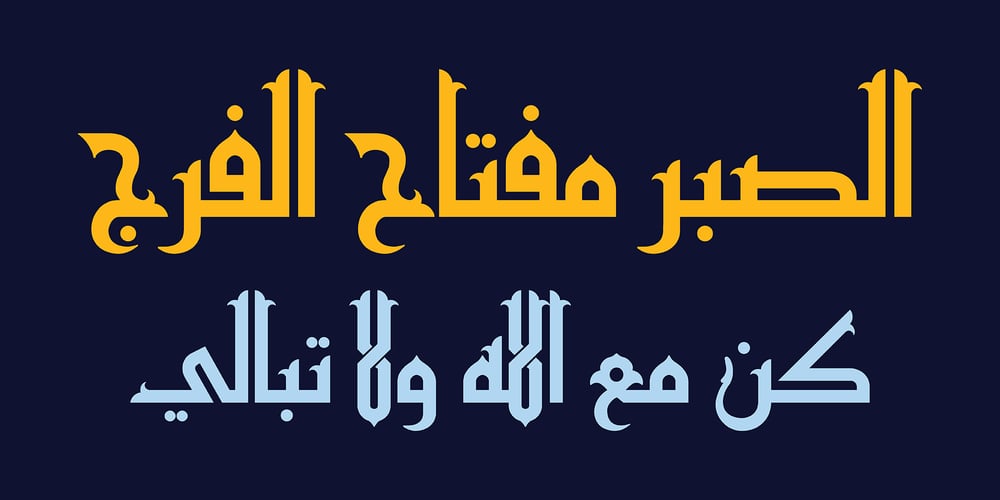
Hasan Hiba Font Family was designed by Hasan Abu Afash and published by Hiba Studio. Hasan Hiba contains 1 styles and family package options. Hasan Hiba is an Arabic display typeface, ideal for titles and graphic projects. The font is inspired by the simple lines of Fatemic Kufi calligraphy. Hasan Hiba won 5th place in Linotype’s first Arabic Type Design Competition. It supports Arabic, Persian, and Urdu. In November 2008, Hasan Hiba was upgraded in collaboration with award-winning Arabic type designer Mirjam Somers to the DecoType font format for use in WinSoft Tasmeem, which was previously bundled with InDesign CS4.